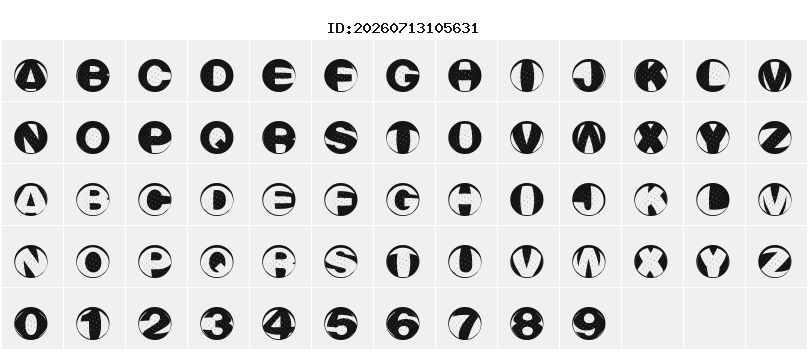
• Font Name: RainyNight
• Full Font Name: RainyNight Medium
About RainyNight.ttf
RainyNight.ttf is a modern, elegant sans-serif font designed for ultimate readability and visual harmony. Perfect for branding, headlines, web design, and print materials.